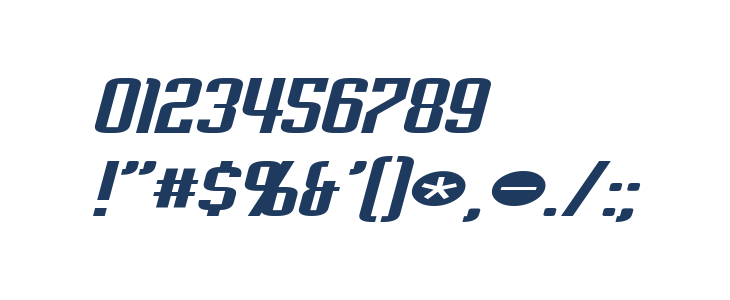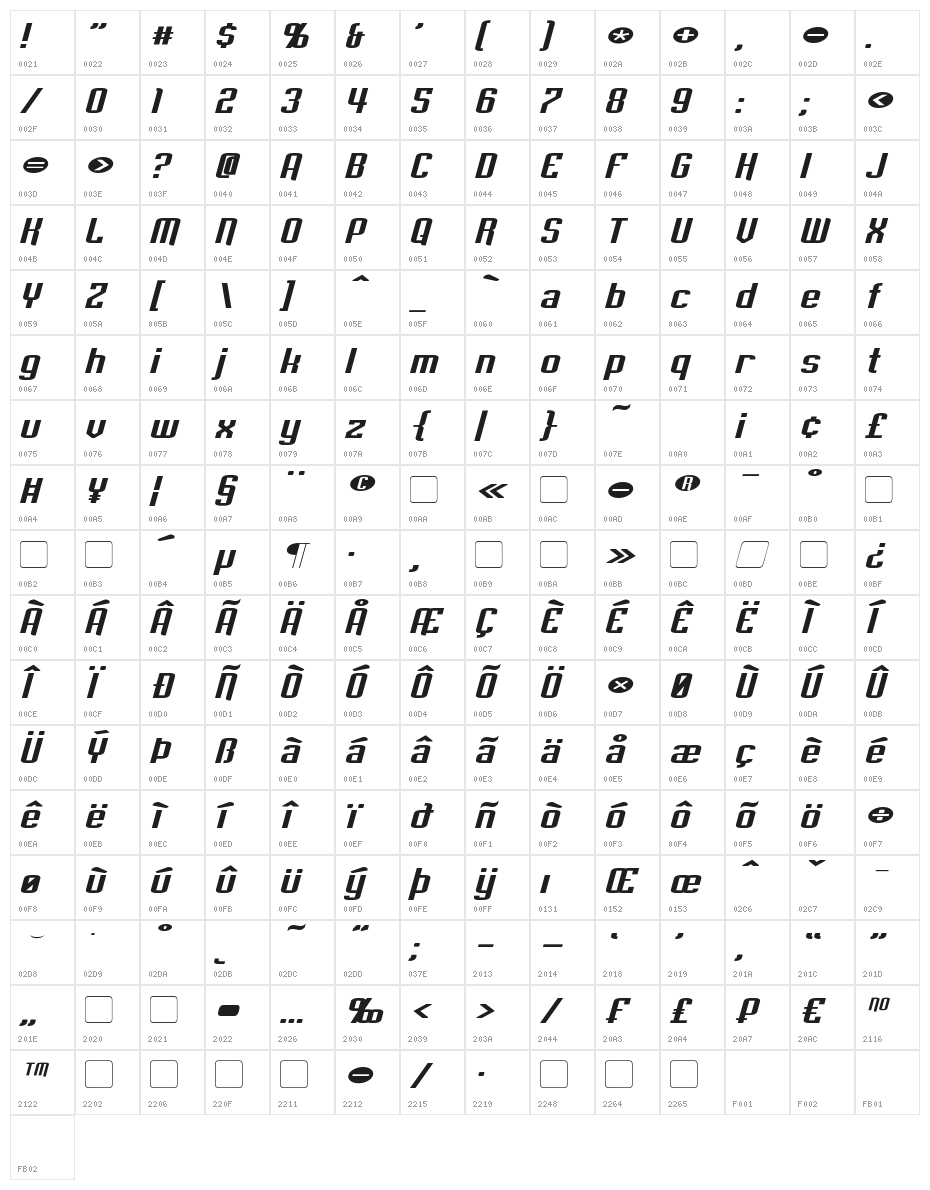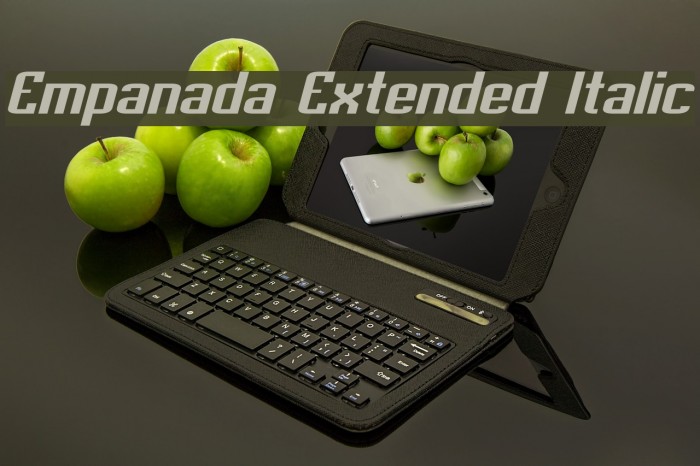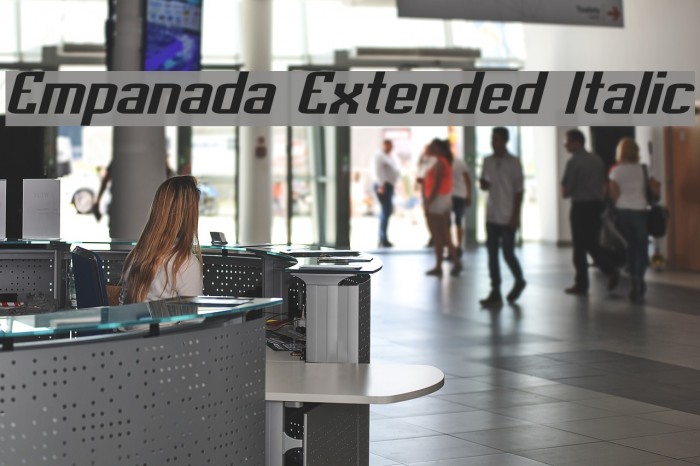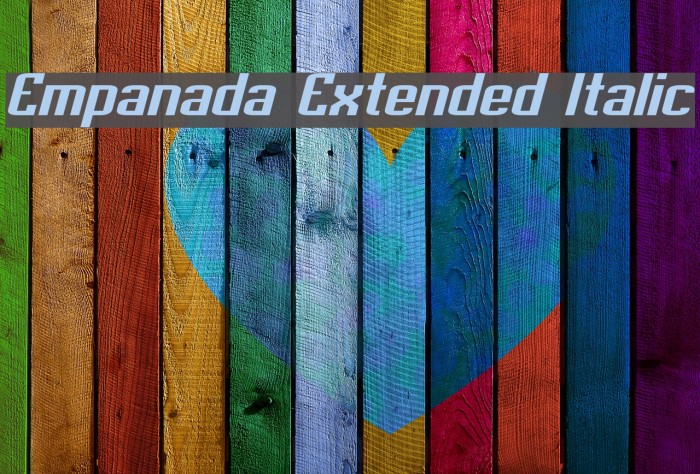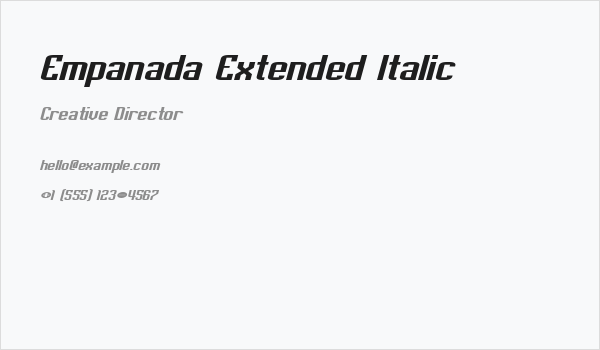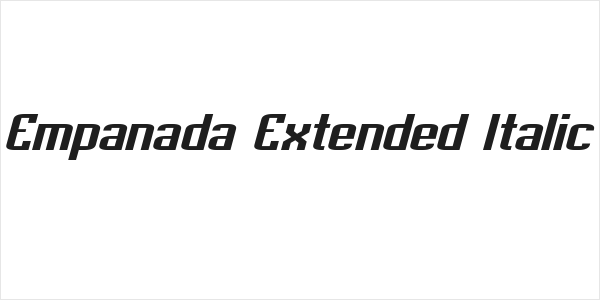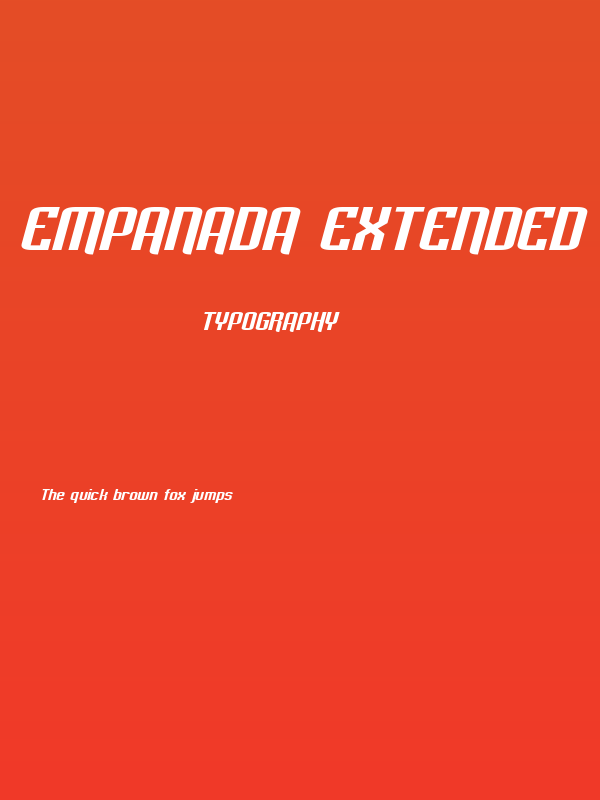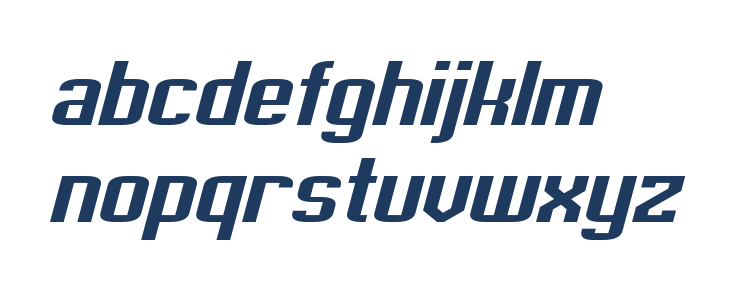
Empanada Extended Italic Font
Empanada Extended Italic Description
This font features a bold and dynamic style with an italic slant, giving it a sense of movement and energy. The characters are extended, providing a wide and spacious appearance that enhances readability while maintaining a unique aesthetic. The uppercase and lowercase letters are consistent in their angular design, with sharp edges and clean lines that contribute to a modern and sleek look. The numerals and special characters follow the same stylistic approach, ensuring uniformity across all glyphs. This font's boldness and italic nature make it stand out, suitable for various creative applications.